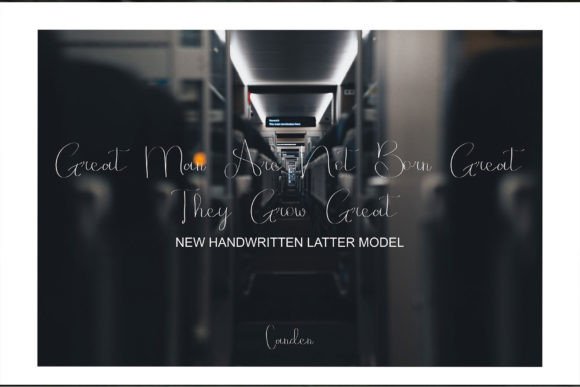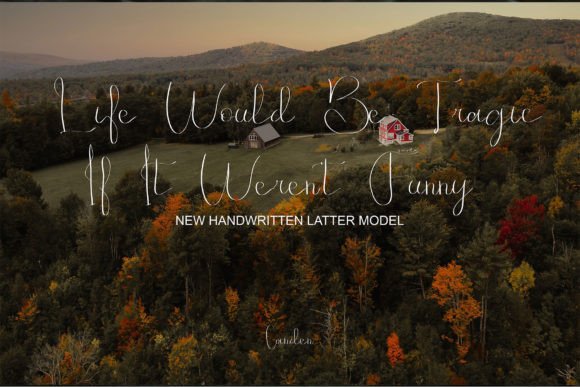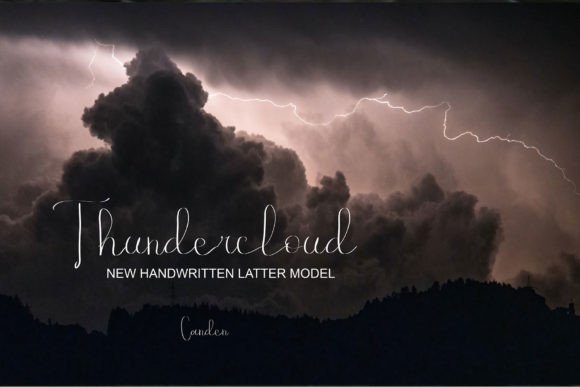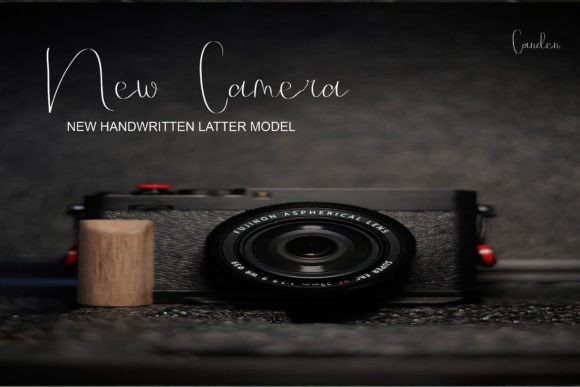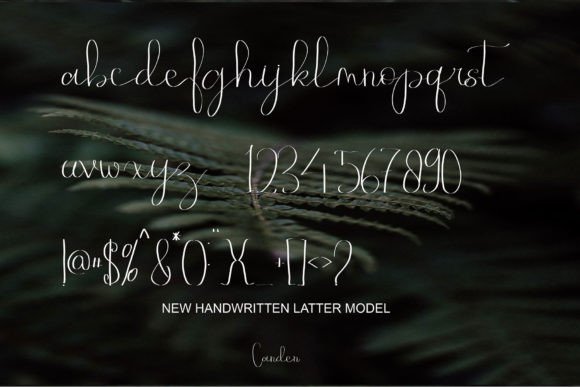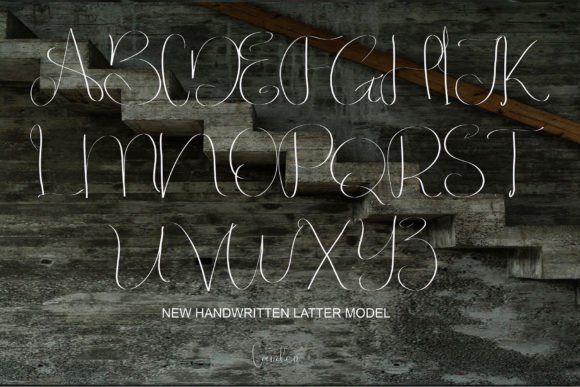
Aldenia Adnan Font: A Simple yet Stylish Handwritten Font
In the world of typography, fonts play a crucial role in conveying messages, expressing emotions, and creating visual identities. For designers, crafters, and marketers, finding the right font can make all the difference in their creative projects. One such font that has gained attention for its simplicity and style is the Aldenia Adnan Font. In this article, we’ll explore the features, benefits, and uses of this unique font.
What is Aldenia Adnan Font?
Aldenia Adnan Font is a handwritten font created using a pen tablet. As a result, it boasts a personal and organic feel, reminiscent of traditional handwriting. The font’s simplicity is one of its standout features, making it highly versatile for various applications. Whether you’re designing a website, creating an advertisement, or crafting a social media post, Aldenia Adnan Font can add a touch of elegance and sophistication.
Key Features of Aldenia Adnan Font
- Handwritten with a personal touch: The font’s handwritten nature gives it a unique and personal feel, setting it apart from more traditional fonts.
- Simple yet stylish: Aldenia Adnan Font strikes the perfect balance between simplicity and style, making it suitable for a wide range of projects.
- Versatile: This font can be used for various purposes, including websites, advertisements, social media posts, and more.
- Easy to read: The font’s clarity and legibility make it easy to read, even at smaller sizes.
Benefits of Using Aldenia Adnan Font
So, why should designers and crafters choose Aldenia Adnan Font for their projects? Here are some benefits:
- Unique visual identity: Aldenia Adnan Font can help create a distinctive visual identity for your brand or project, setting you apart from others.
- Emotional connection: The font’s handwritten nature can create an emotional connection with your audience, making your message more relatable and engaging.
- Flexibility: Aldenia Adnan Font can be used in various contexts, from digital platforms to print materials.
- Time-saving: With its clear and legible design, Aldenia Adnan Font can save you time and effort in designing and editing your content.
Uses of Aldenia Adnan Font
Aldenia Adnan Font is an incredibly versatile font that can be used in a variety of projects, including:
- Web design: Use Aldenia Adnan Font to create a unique and engaging website that reflects your brand’s personality.
- Advertising: This font is perfect for creating eye-catching advertisements that grab attention and convey your message effectively.
- Social media: Aldenia Adnan Font can add a personal touch to your social media posts, making them more relatable and engaging.
- Branding: Use this font to create a consistent visual identity for your brand across various platforms.
Tips for Using Aldenia Adnan Font
To get the most out of Aldenia Adnan Font, here are some tips:
- Pair it with other fonts: Experiment with pairing Aldenia Adnan Font with other fonts to create a unique and visually appealing combination.
- Adjust font sizes: Play with different font sizes to create visual hierarchy and emphasize important information.
- Use it consistently: Use Aldenia Adnan Font consistently across your project to create a cohesive visual identity.
Aldenia Adnan Font is a simple yet stylish handwritten font that offers a unique and personal touch to various creative projects. Its versatility, legibility, and emotional connection make it an excellent choice for designers, crafters, and marketers. By incorporating Aldenia Adnan Font into your projects, you can create a distinctive visual identity, engage your audience, and convey your message effectively.